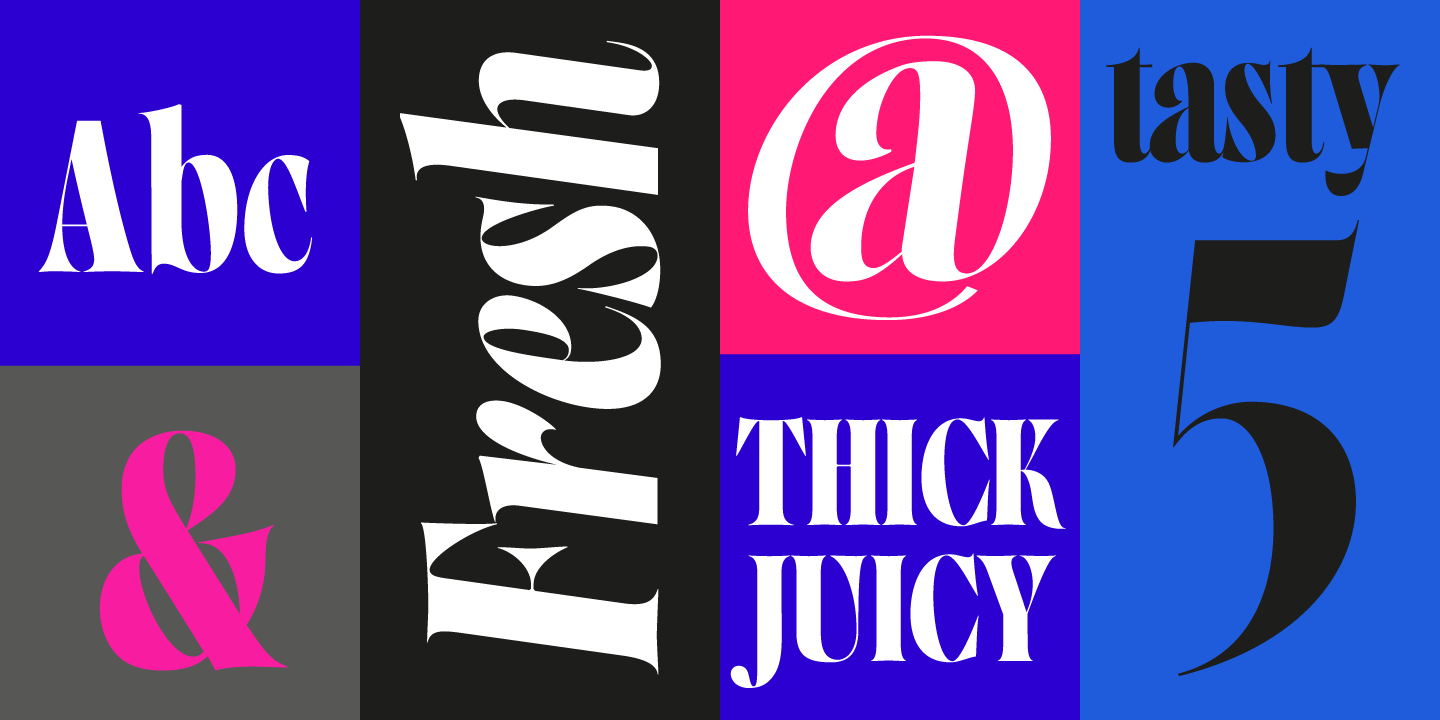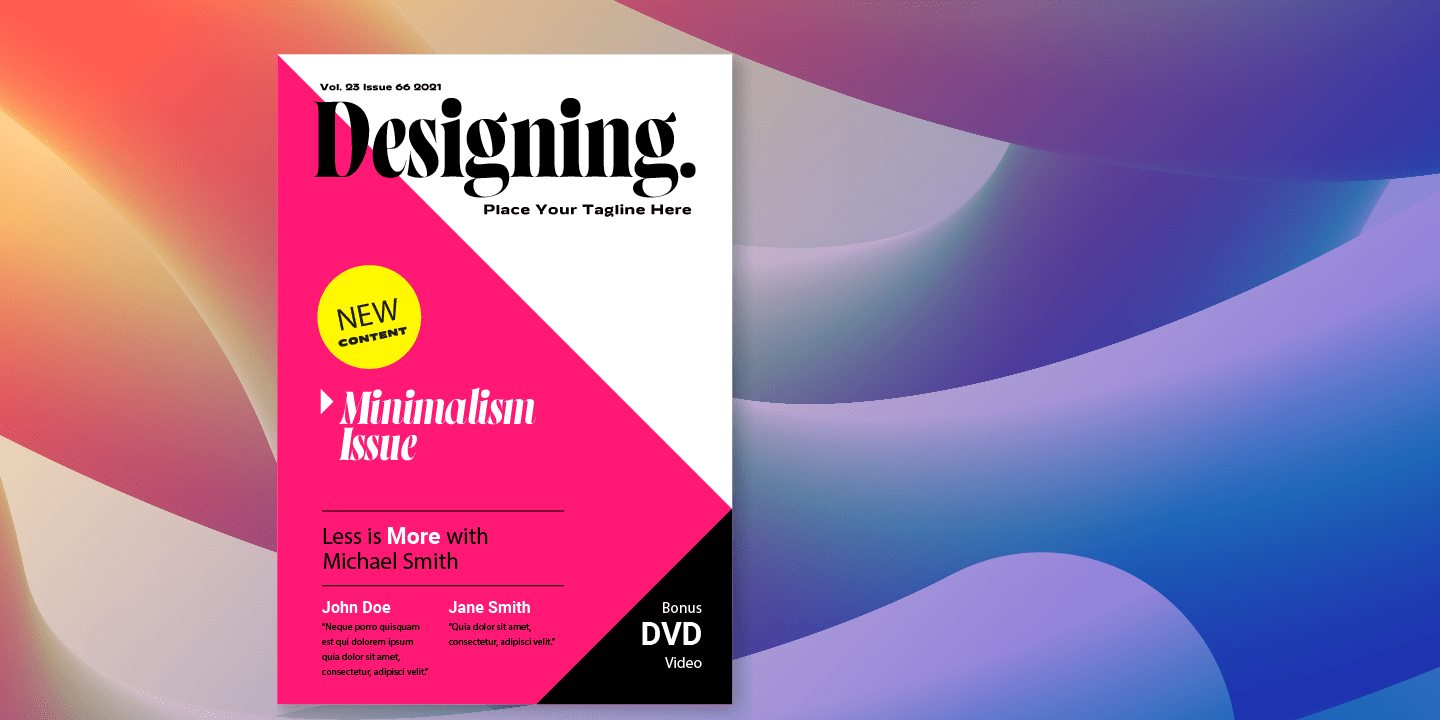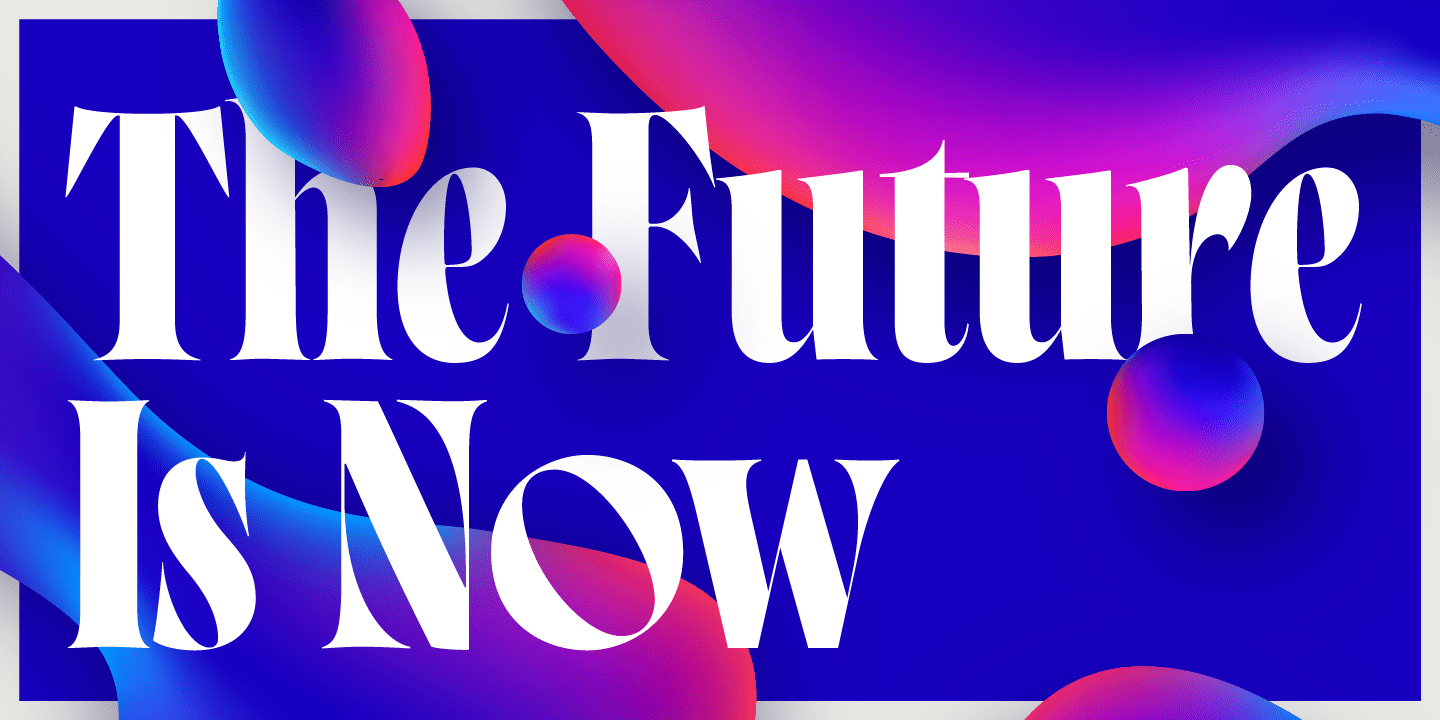
About Norman Fat
Get to know Norman Fat a new version of our best seller Norman, elegant and fashion forward. This new condensed high contrast and heavy weight serif font is based on expansion giving a sense of self confidence. The oblique ax was specially added to get…